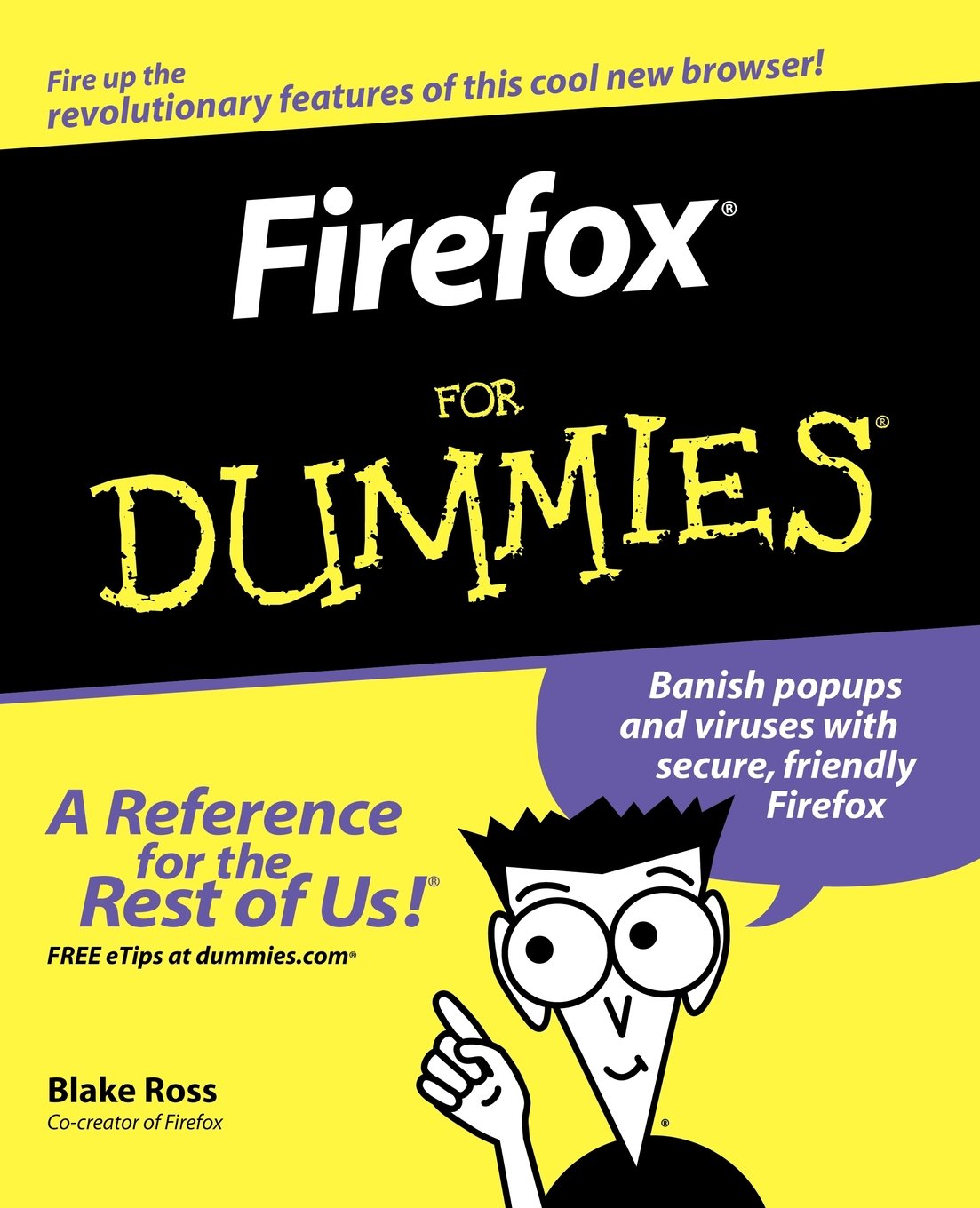
For Dummies Font
BookFor Dummies is a series of instructional/reference books that are written in a tutorial style and are organized into small, easy-to-digest chunks of information, making them easy to follow and understand. The books are published by John Wiley & Sons and are known for their distinctive yellow and black cover design and the "For Dummies" logo.
The cover for Firefox for Dummies shown above uses the word "Firefox" set in Myriad Bold Italic, and the word "DUMMIES" is quite similar to Dummies Font by RudynFluffy. The font is free for personal and commercial purposes.